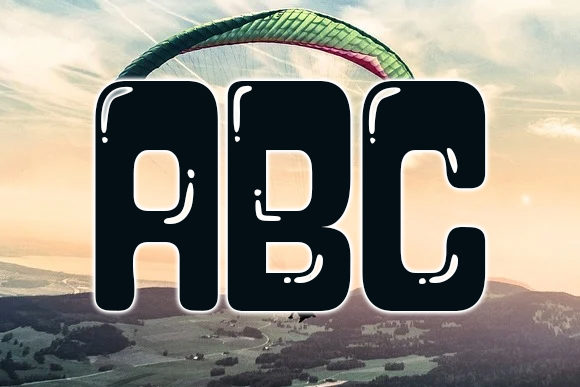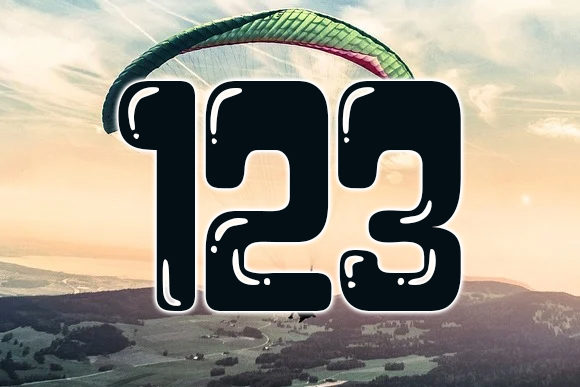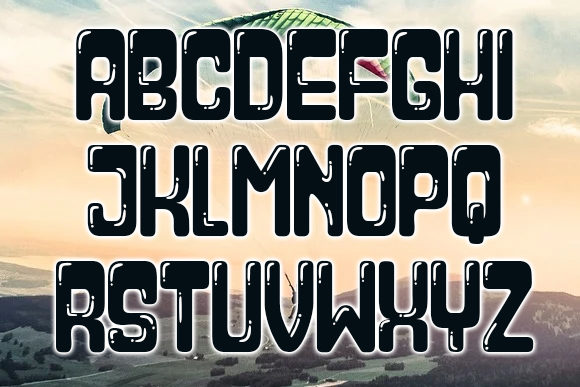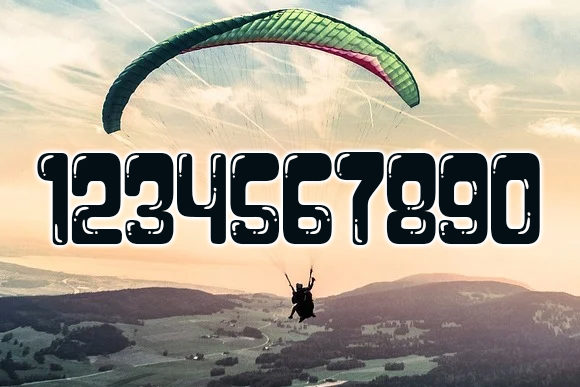
Introduction to Paraglide Font
Paraglide is an awesome grooving bubble font that comes in Regular and 3D versions.
It will look awesome on any poster, flyer, or print .
Key Features of Paraglide Font
Why Choose Paraglide Font?
Paraglide Font offers exceptional quality and versatility, making it a valuable addition to your design toolkit. Whether you’re creating for personal projects or commercial use, Paraglide Font delivers professional results.